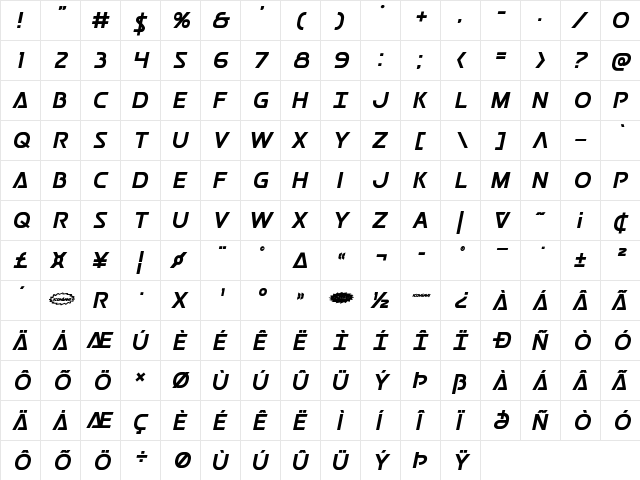
Postmaster Bold Bold
Design Context for Postmaster Bold Typeface
Postmaster Bold is a composed and adaptable typeface that performs quietly and consistently across a wide range of design contexts. Its bold stroke weight gives it real presence on the page.